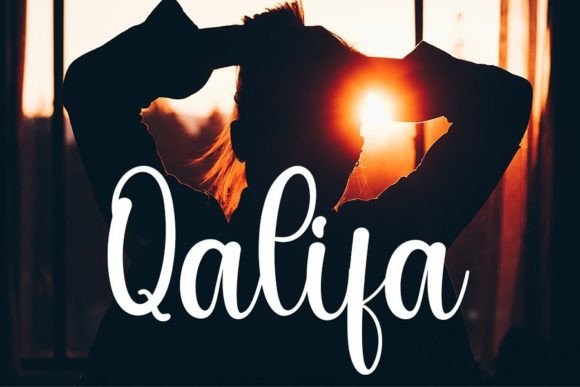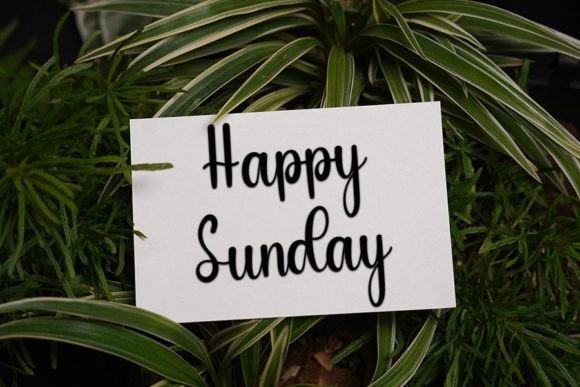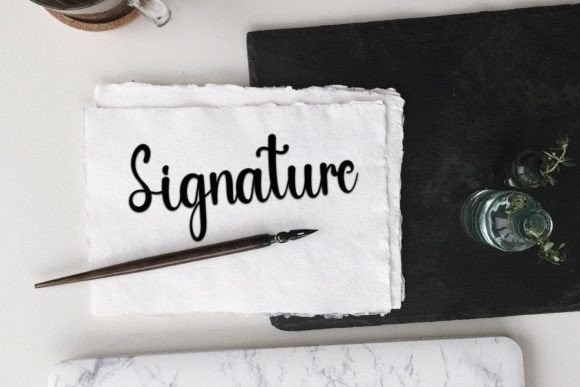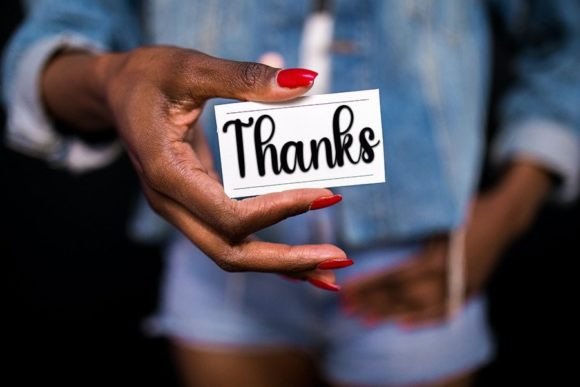
Discover the Elegance of Giovani Font: Elevate Your Designs with Timeless Style
Are you on the hunt for a font that exudes elegance, sophistication, and a touch of handmade charm? Look no further than Giovani Font, a stunning handwritten typeface that is sure to capture your heart. With its incredibly distinct and timeless style, Giovani is the perfect addition to any design project, from crafting and branding to digital and print materials.
The Beauty of Giovani Font
Giovani Font is a neat and beautiful handwritten font that boasts an elegant touch, making it an ideal choice for designers and crafters seeking to add a personal and luxurious feel to their work. Its unique, cursive style is characterized by flowing lines, subtle imperfections, and a sense of movement, giving it a dynamic and eye-catching appeal.
What Makes Giovani Font Stand Out?
- Distinctive Style: Giovani Font features an unmistakable, handcrafted aesthetic that sets it apart from more generic, machine-generated fonts. Its individuality shines through in every letter and word, ensuring your designs stand out from the crowd.
- Elegant and Versatile: Whether you’re working on a wedding invitation, a fashion brand’s logo, or a personal craft project, Giovani Font adapts seamlessly to various design contexts, always bringing a touch of class and refinement.
- Timeless Appeal: Unlike trendy fonts that may quickly become outdated, Giovani Font’s classic, elegant design ensures it remains relevant and stylish for years to come. This timeless quality makes it a valuable asset for any designer or brand looking to establish a lasting visual identity.
- User-Friendly: Giovani Font is designed to be easy to read and use, making it accessible for a wide range of projects, from large-scale advertising campaigns to small, personal crafts.
How to Use Giovani Font in Your Projects
Giovani Font’s versatility is one of its most compelling features, allowing it to be used across a diverse array of design projects. Here are a few ideas to get you started:
- Branding and Logos: Add a personal, elegant touch to your brand’s visual identity with Giovani Font. Its distinctive style makes it perfect for logos, business cards, and letterheads.
- Wedding and Event Planning: Create stunning wedding invitations, save-the-date cards, and event banners that set the tone for a sophisticated and memorable occasion.
- Fashion and Beauty: Elevate your fashion or beauty brand with Giovani Font’s luxurious feel. Use it for product packaging, advertisements, and website headers to convey a sense of high-end quality.
- Crafting and DIY Projects: Add a professional, yet personal touch to your handmade crafts, such as jewelry, candles, or clothing, with beautifully designed labels and packaging.
Tips for Maximizing Giovani Font’s Impact
To make the most of Giovani Font’s unique charm, consider the following design tips:
- Pair with Complementary Fonts: Combine Giovani Font with simpler, sans-serif fonts for body text to create visual contrast and enhance readability.
- Experiment with Colors: While Giovani Font looks stunning in classic black and white, don’t be afraid to experiment with colors that match your brand’s palette or project theme.
- Adjust Letter Spacing: Fine-tune the letter spacing to ensure optimal readability and aesthetic appeal, especially in longer texts.
Giovani Font is more than just a typeface; it’s a design element that can transform your projects with its elegant, timeless style. Whether you’re a professional designer, a small business owner, or a crafting enthusiast, Giovani Font offers a world of creative possibilities. By incorporating this beautiful handwritten font into your designs, you’ll not only elevate their visual appeal but also imbue them with a sense of luxury and personal touch that resonates with audiences.
So, fall in love with Giovani Font’s distinct charm and use it to create spectacular designs that leave a lasting impression.